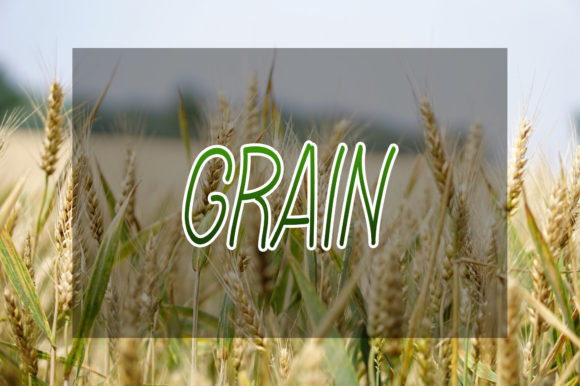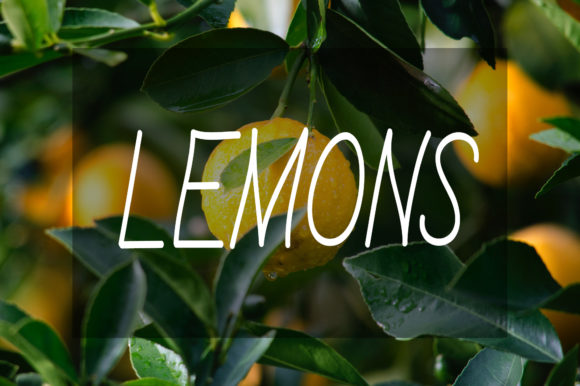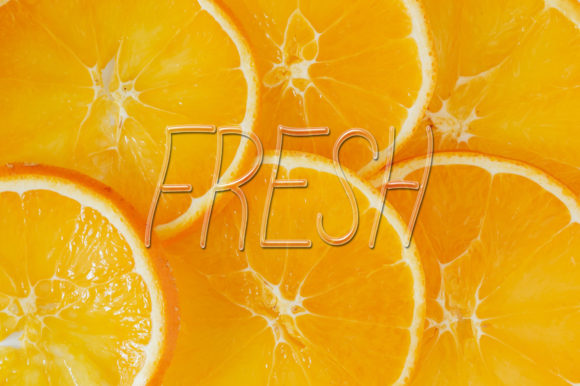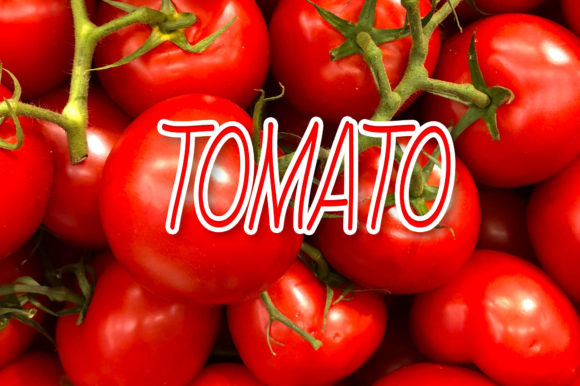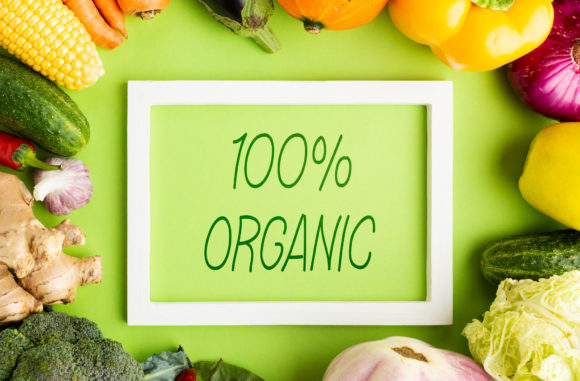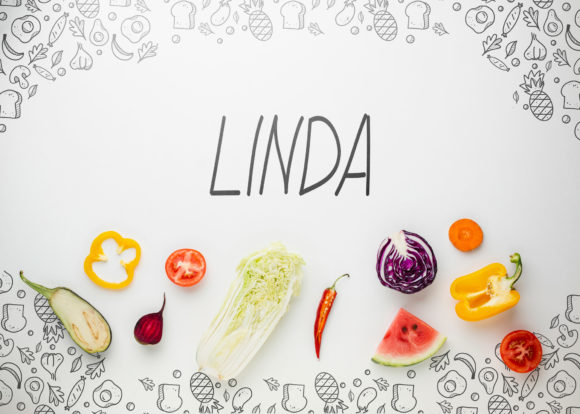
Introduction to Linda Farmhouse Font
Do you ever find yourself scrolling through social media, seeing beautiful designs and wondering how they achieved that effortless, laid-back look? It’s a moment we’ve all experienced – the spark of inspiration that sets our creative juices flowing. For designers, it’s the perfect opportunity to experiment with new fonts, textures, and backgrounds to elevate their next project.
That’s where the Linda Farmhouse Font comes in – a simple yet charming handwritten font that can breathe new life into any creative endeavor. With its natural, organic feel, this font is an invaluable design resource that can be used across various projects, from wedding invitations to blog posts.
Whether you’re a seasoned designer or just starting out, the Linda Farmhouse Font is a must-have addition to your design library. And the best part? It’s available for free download, making it an accessible and high-quality design resource for all.
Linda Farmhouse Font
- Unique, hand-drawn design with a vintage feel, perfect for creative projects and design resources.
- Perfect for use in creative projects, such as invitations, posters, and social media graphics, where a unique and eye-catching font is desired.
Honest Review: Linda Farmhouse Font
As a designer, I’m always on the lookout for high-quality design resources to elevate my creative projects. Recently, I stumbled upon the Linda Farmhouse Font, and I’m excited to share my honest review.
- ✨ Unique and charming design: The Linda Farmhouse Font has a distinctive, vintage feel that’s perfect for rustic or farmhouse-themed projects.
- ✨ High-quality vectors: The font is available in high-resolution vector format, making it ideal for printing or using on large designs.
- ⚠️ Limited font weights: The Linda Farmhouse Font only comes in a few font weights, which may limit its versatility for certain design projects.
- ⚠️ No transparent background: The font doesn’t have a transparent background option, which may make it difficult to use on certain design elements.
Overall, I’m impressed with the Linda Farmhouse Font’s unique design and high-quality vectors. While it may have some limitations, it’s a great resource for designers working on rustic or farmhouse-themed projects. With a little creativity, it can be a valuable addition to your design arsenal.
Linda Farmhouse Font
Getting the Most Out of Linda Farmhouse Font
To maximize the potential of this font, experiment with different font sizes, colors, and combinations to create visually appealing designs. Consider pairing Linda Farmhouse Font with other complementary fonts for added depth.
Linda Farmhouse Font is ideal for rustic-themed designs, such as wedding invitations, country-style menus, or vintage-inspired posters. Its charming and elegant style makes it a versatile design resource for various creative projects.